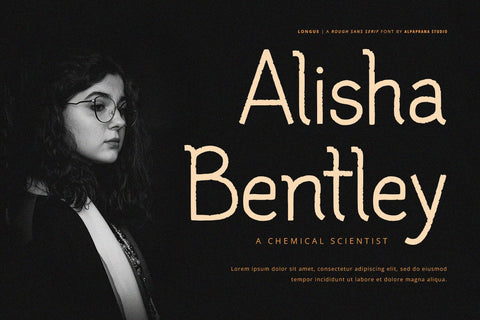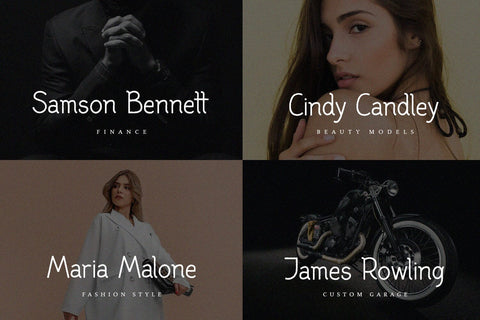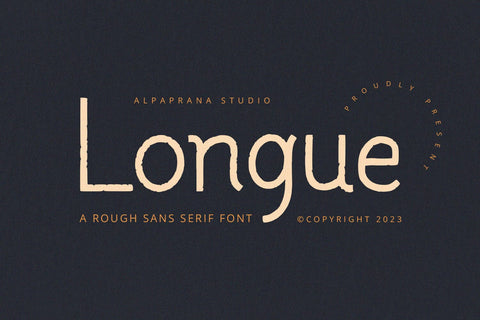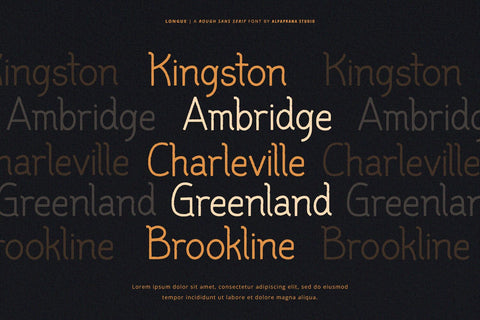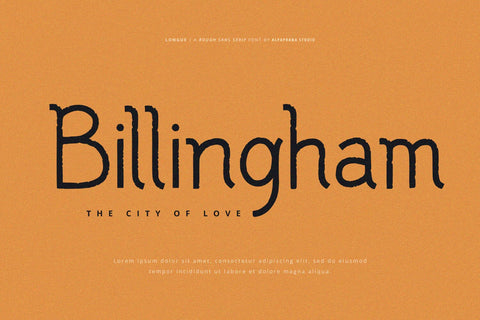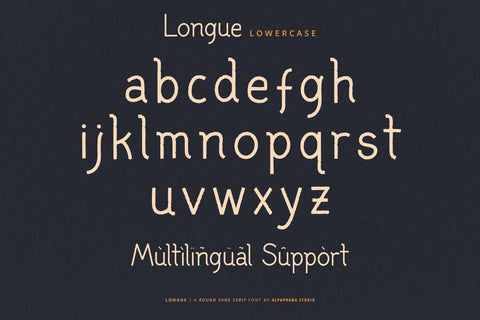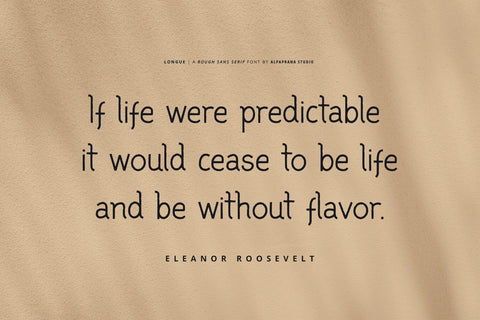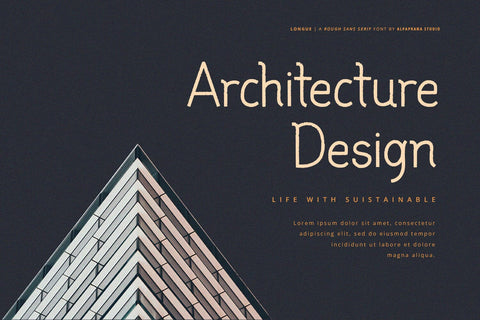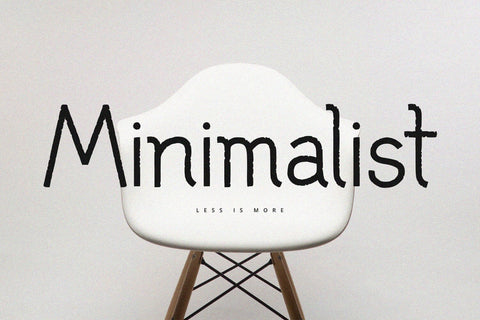
Longue - Rough Font
Longue is a rough sans serif font with natural and modern feels. It will be perfectly used for Branding, Logo Design, Lettering, Logotype, Clothing, Poster, magazine, packaging, posters, shopping bags, t-shirts, book covers, photography, special events and other design project.